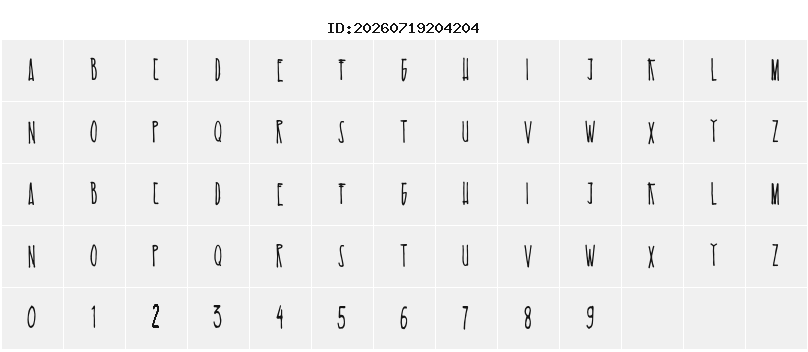
Es Kelapa Muda Preview
• Font Name: Es Kelapa Muda
• Font ID: Stelen: Es Kelapa Muda: 2015
• Full Font Name: EsKelapaMuda
• PostScript Name: EsKelapaMuda
• Character Count: 68
• Designer: Stelen
• Manufacturer: Stelen
About Es Kelapa Muda.otf
Es Kelapa Muda.otf is a modern, elegant sans-serif font designed for ultimate readability and visual harmony. Perfect for branding, headlines, web design, and print materials.